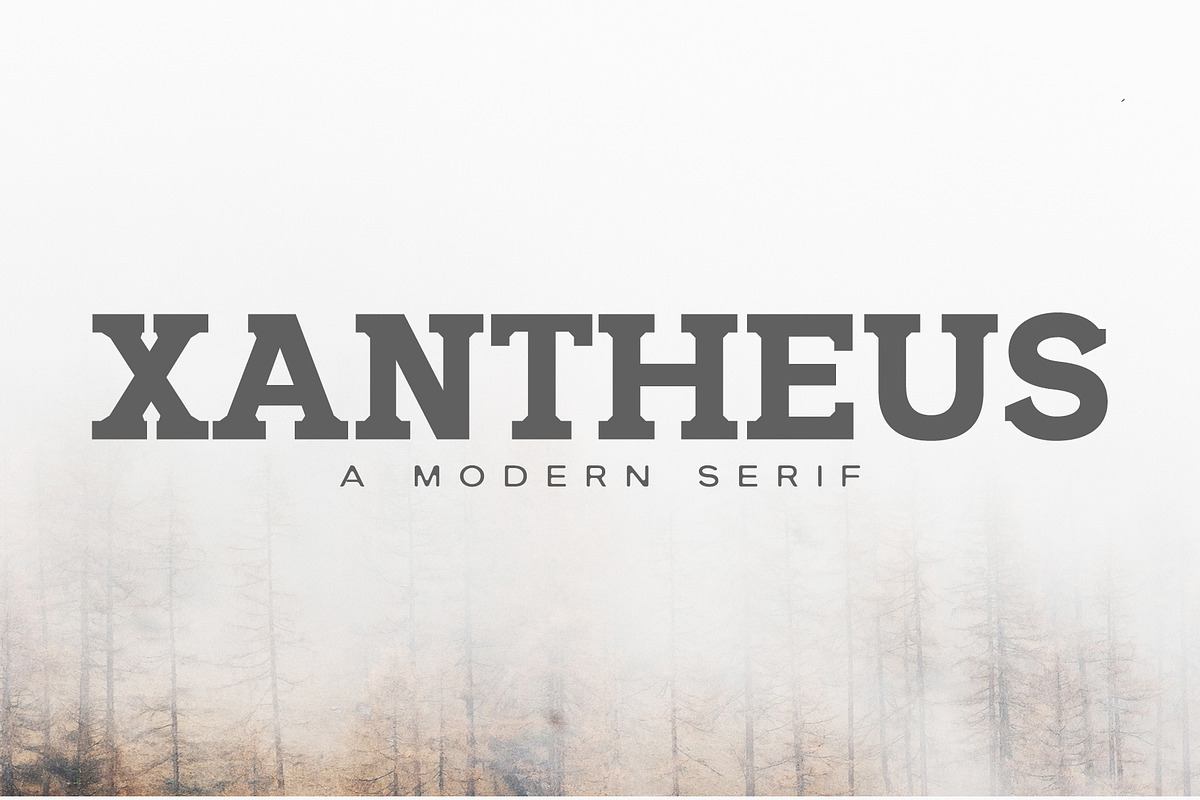
Xantheus Serif Font Family Free Download is a refined and versatile typeface family designed to bring a touch of elegance and sophistication to any design. Featuring multiple weights and styles, from light to bold, this font family is perfect for branding, editorial layouts, logos, websites, and print materials.
Its well-crafted serifs and balanced letterforms offer excellent readability and visual appeal, making it ideal for both body text and headlines. Whether you're creating an upscale brand identity, designing a publication, or building a modern website, Xantheus Serif Font Family Free Download adds timeless professionalism and style to your typography.